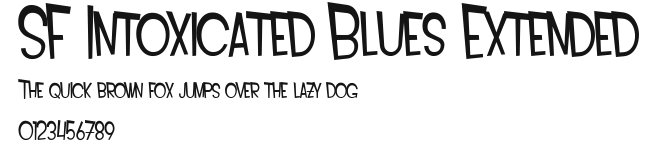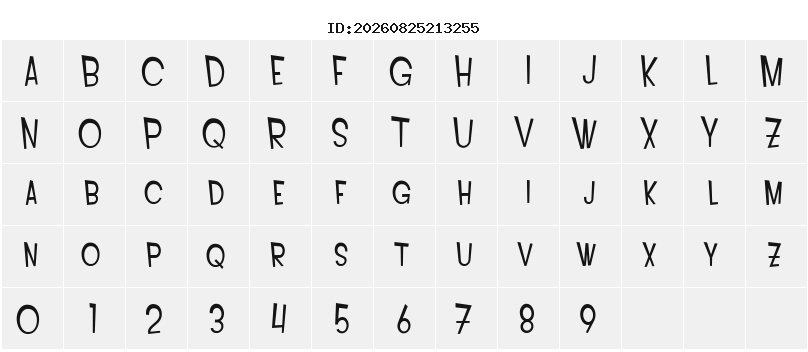
• Font Name: SF Intoxicated Blues Extended
• Full Font Name: SF Intoxicated Blues Extended
• Designer: ShyFonts Type Foundry
About SF Intoxicated Blues Extended.ttf
SF Intoxicated Blues Extended.ttf is a modern, elegant sans-serif font designed for ultimate readability and visual harmony. Perfect for branding, headlines, web design, and print materials.